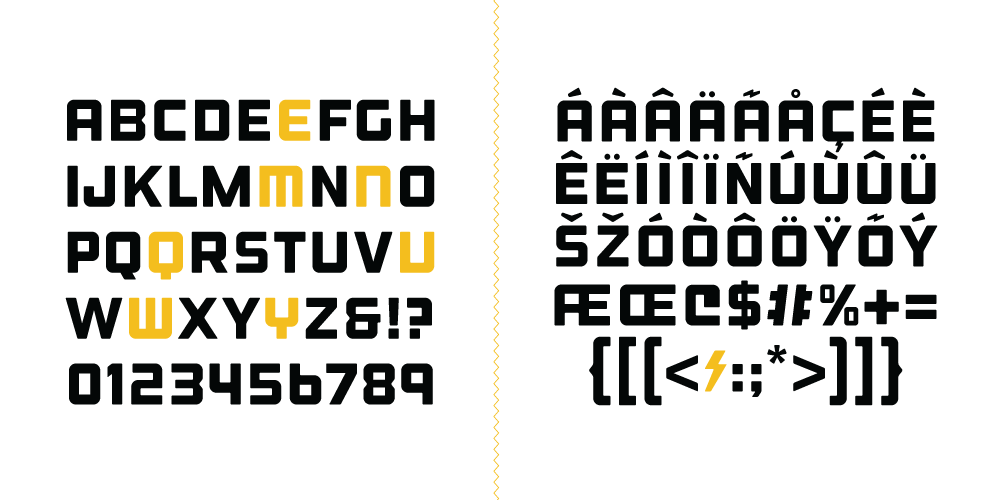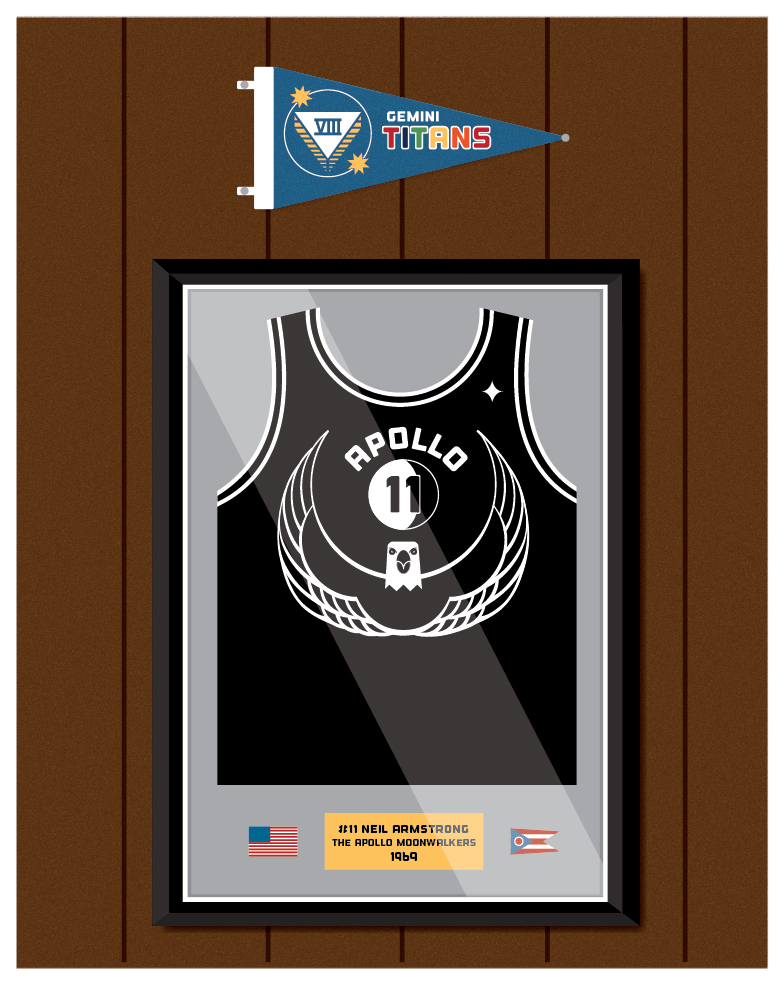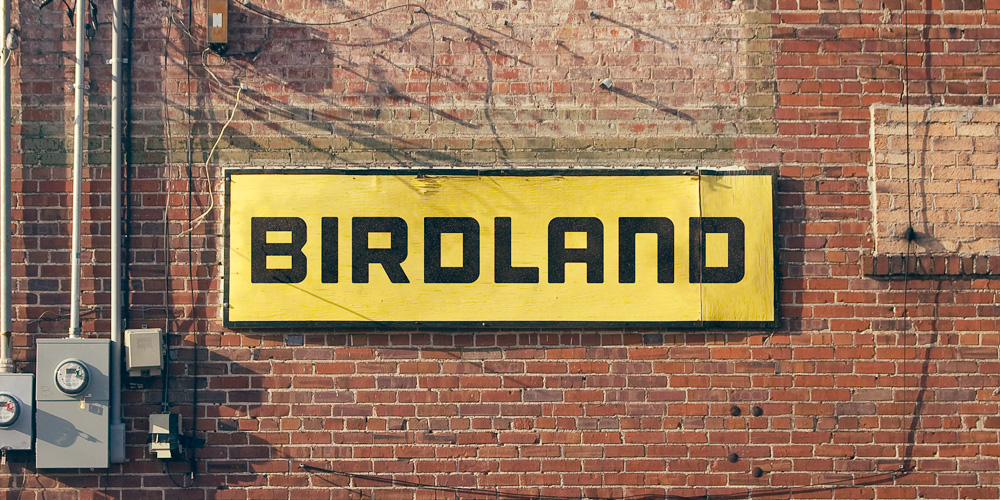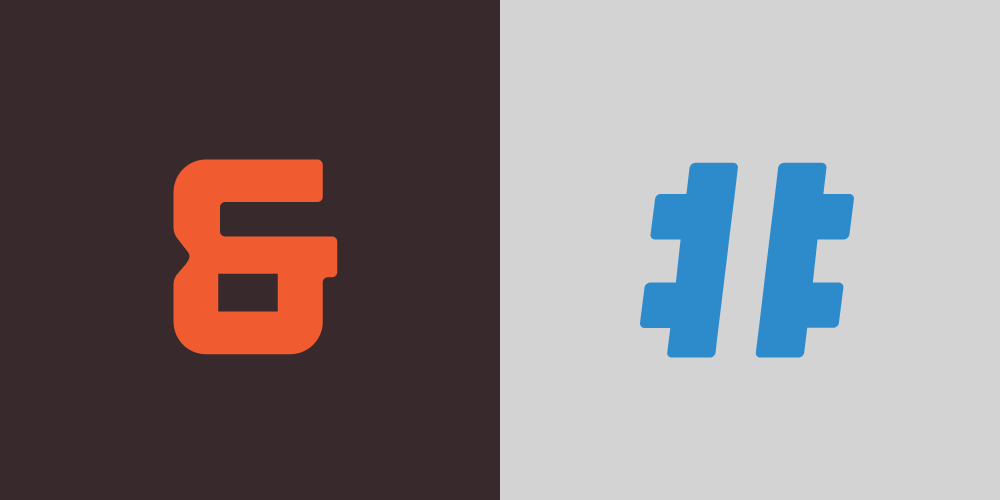
Outage
This font doesn't give a f#&k.
A Bold, Geomteric Sans Serif in two styles (Regular and Cut). 122 Glyphs per Style. Includes a Sweet Lightning Bolt character.
Dave Whitley